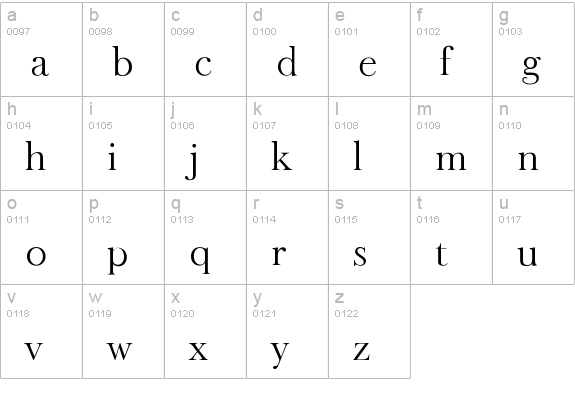
Oldbasker-Light is a refined, elegant variant in the Oldbasker typeface family \xE2\x80\x94 well suited to elegant body text, refined sub-headings, and luxury branding.
Oldbasker-Light is a classic and elegant font that exudes a sense of sophistication and timelessness. With its clean lines and subtle curves, this font is perfect for adding a touch of refinement to any project. The delicate serifs and graceful letterforms of Oldbasker-Light make it ideal for use in headings, logos, invitations, and more. The best part? Oldbasker-Light is available for free download at FontsMarket.com. So whether you're a designer looking to elevate your work with a touch of class, or a hobbyist wanting to add some elegance to your personal projects, Oldbasker-Light is the perfect choice. Download it today and let your creativity shine with this beautiful and versatile font.